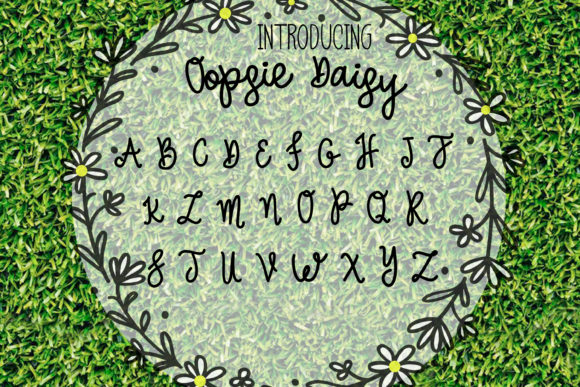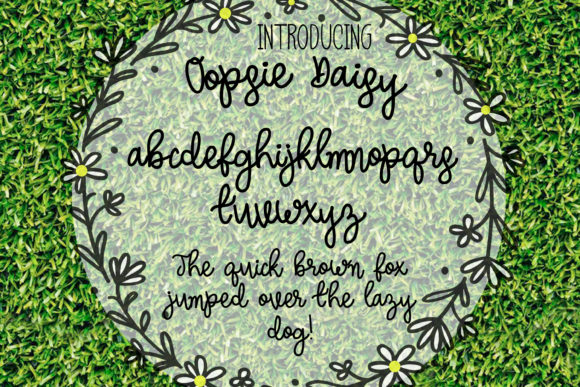
Introduction to Oopsie Daisy Font
We’ve all been there – staring at a blank canvas, trying to bring our creative vision to life. The cursor blinks, and our minds go blank. But what if we had the perfect tool to break the creative block and add a touch of whimsy to our design project? Enter the Oopsie Daisy Font, a delightful handwritten font that’s sure to bring a smile to your face.
This charming font is a design resource that’s both fun and versatile, perfect for adding a high-quality, organic feel to any project. With its transparent background, it’s easy to use and can be downloaded for free, making it a valuable addition to any designer’s toolkit.
Key Features of Oopsie Daisy Font
- High-quality design resource ideal for creative projects, offering a unique and playful touch.
- Unique characteristics: whimsical, cursive, and hand-drawn style, making it perfect for adding a personal touch to your design project.
Honest Review: Oopsie Daisy Font
As a designer, I’m always on the lookout for unique and high-quality design resources. Recently, I stumbled upon the Oopsie Daisy Font, and I must say it’s been a delightful addition to my creative projects.
What works well: ✨ The font’s whimsical and playful style makes it perfect for designs that require a touch of innocence and charm. The font comes in various weights and styles, which allows for a lot of creative flexibility. Additionally, the transparent background makes it easy to layer and combine with other design elements.
What doesn’t work well: ⚠️ The font is a bit limited in terms of its use cases. It’s best suited for designs that require a cute and childish tone, and may not be the best choice for more serious or professional projects. Also, the font’s consistency can be a bit off, which may require some manual adjustments.
Overall impression: The Oopsie Daisy Font is a fantastic design resource for designers who are looking for a high-quality, free download. It’s perfect for creative projects that require a touch of whimsy and charm. With its transparent background and various weights and styles, this font is sure to add a unique touch to your designs.
- Unique and whimsical style
- Various weights and styles available
Common Use Cases for Oopsie Daisy Font
The Oopsie Daisy Font is perfect for a variety of creative projects, including social media graphics, presentations, logos, and typography. Its high-quality design and transparent background make it a versatile resource for designers of all levels.